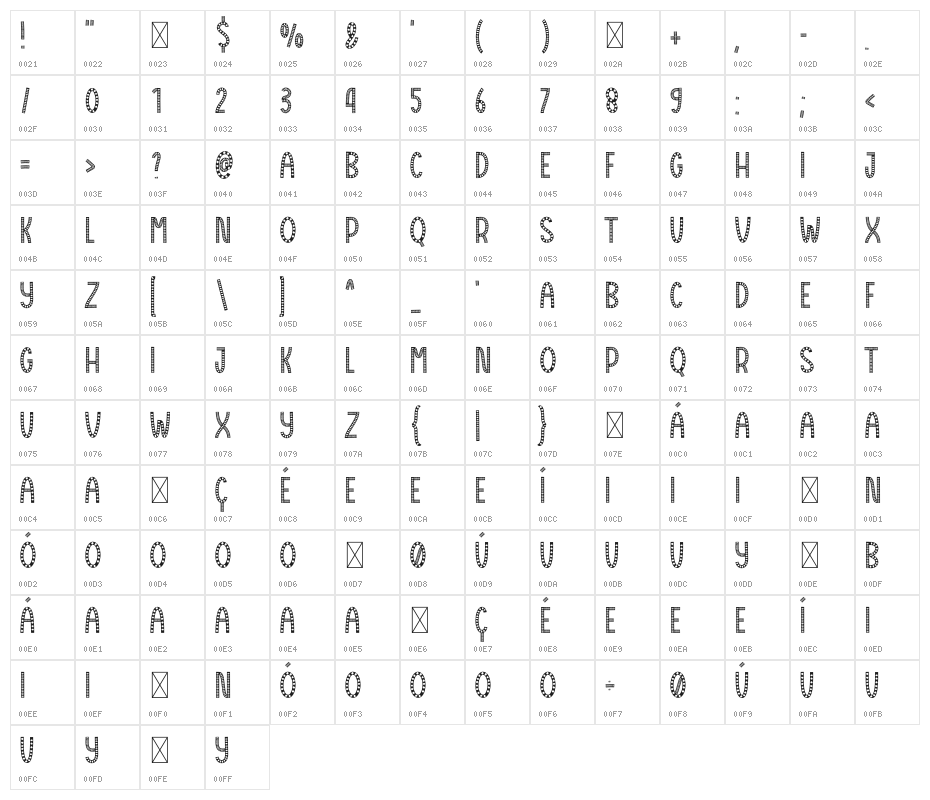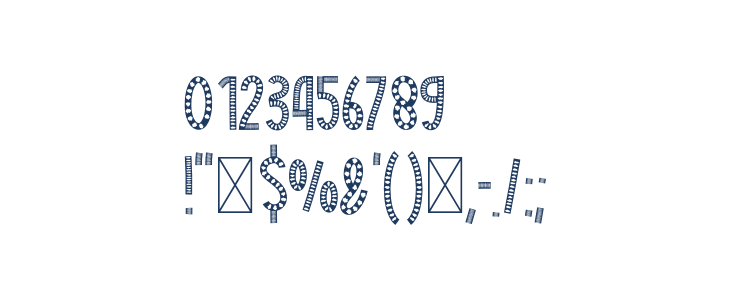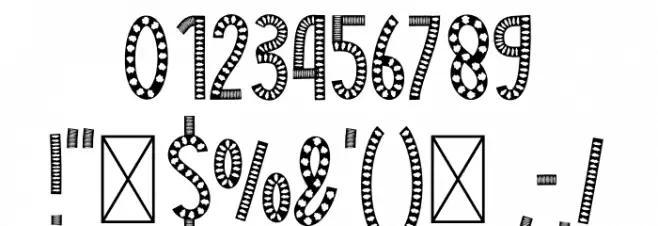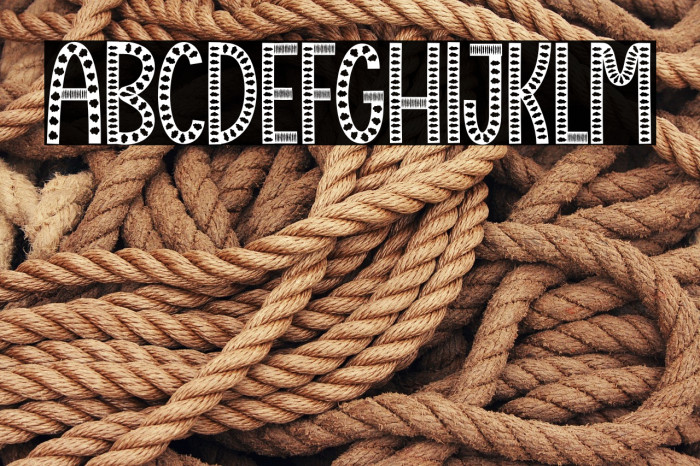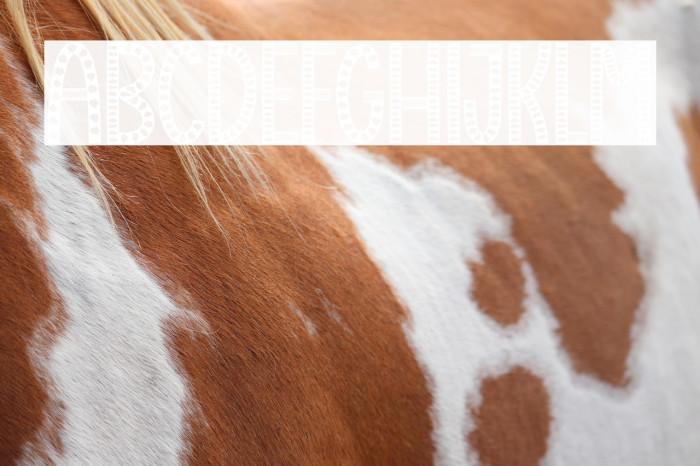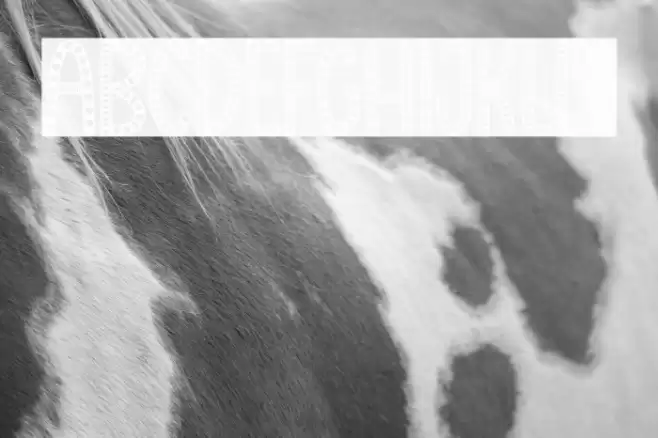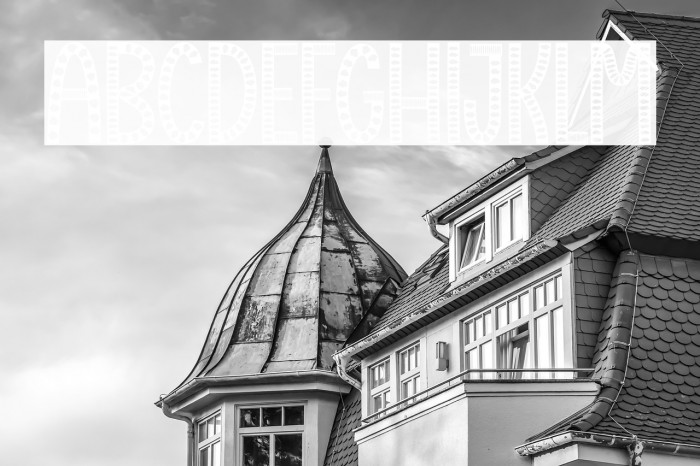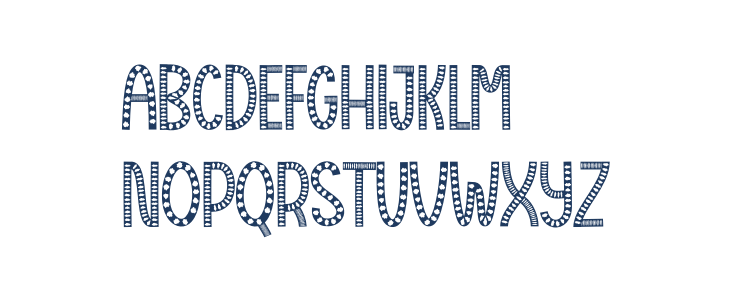
Christmas Cloud Font
Christmas Cloud Description
This decorative font features a playful and festive design, reminiscent of holiday lights or candy canes. Each character is outlined with a series of dots or stripes, giving it a textured and whimsical appearance. The uppercase and lowercase letters maintain a consistent style, with rounded edges and a slightly condensed form. Numbers and special characters follow the same decorative theme, making the font suitable for creating a cohesive and themed design. The overall look is cheerful and eye-catching, perfect for holiday-themed projects.
| Proposed Projects | Ideal for holiday cards, festive banners, party invitations, and seasonal advertisements. |